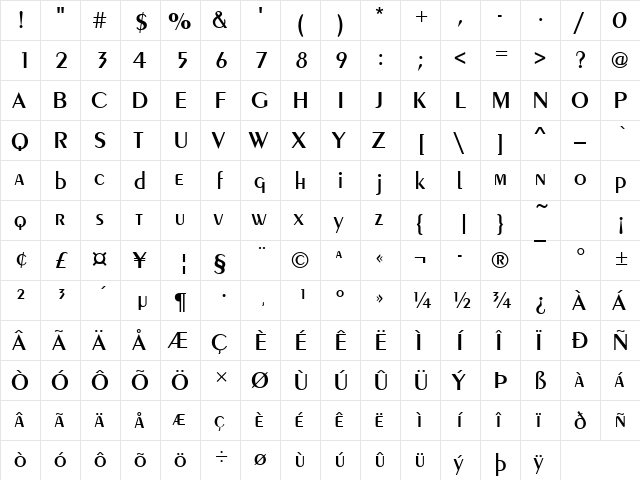
Peinaud Medium
Design Context for Peinaud Typeface
Peinaud is a composed and adaptable typeface that performs quietly and consistently across a wide range of design contexts.